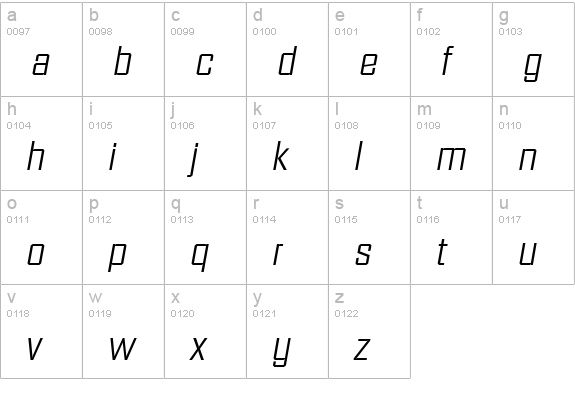
DiamanteSerial-Light-Italic is a refined, elegant, italic variant in the DiamanteSerial typeface family \xE2\x80\x94 well suited to elegant body text, refined sub-headings, and luxury branding.
DiamanteSerial-Light-Italic font is a delicate and elegant typeface that exudes sophistication and charm. Its light italic style adds a touch of grace and refinement to any project. The slender lines and subtle curves of this font make it perfect for adding a touch of class to your designs. This font is available for free download at FontsMarket.com, where you can easily access and incorporate it into your creative projects. Whether you're working on invitations, branding materials, or any other design that requires a touch of elegance, DiamanteSerial-Light-Italic font is sure to elevate your work to the next level. Download it today and add a touch of luxury to your designs.